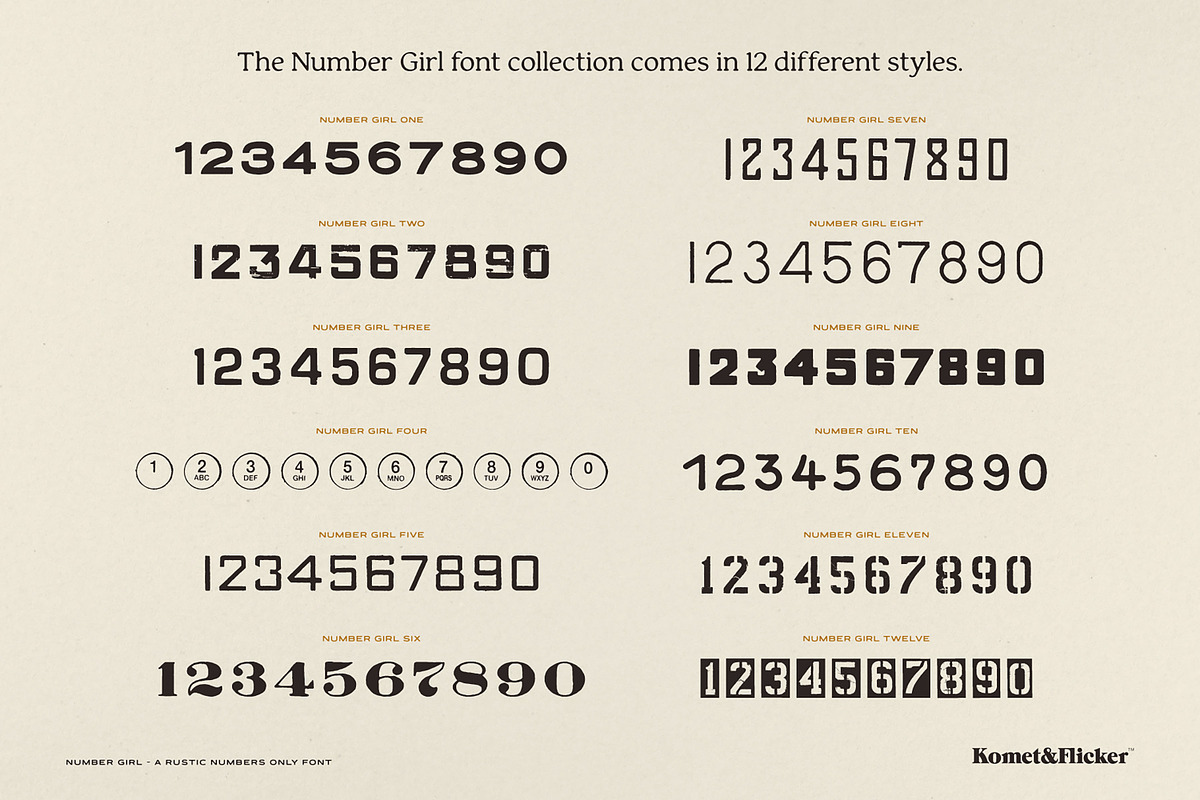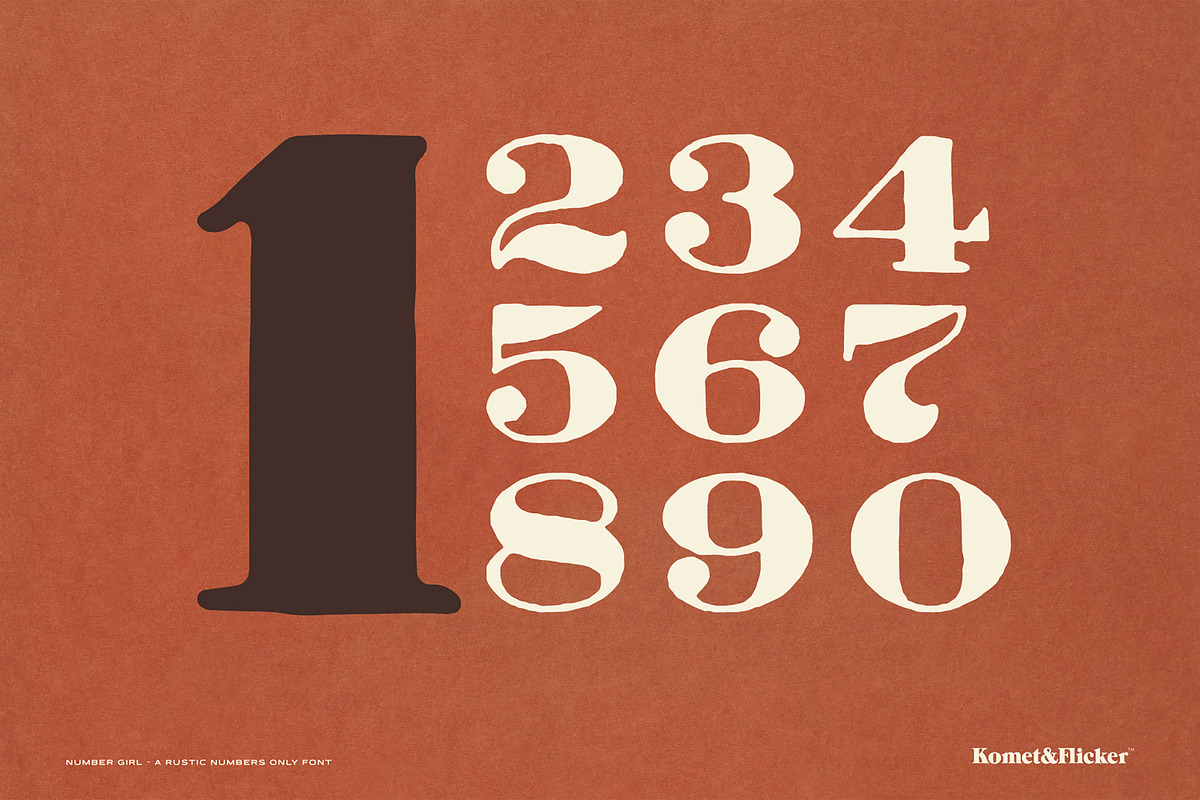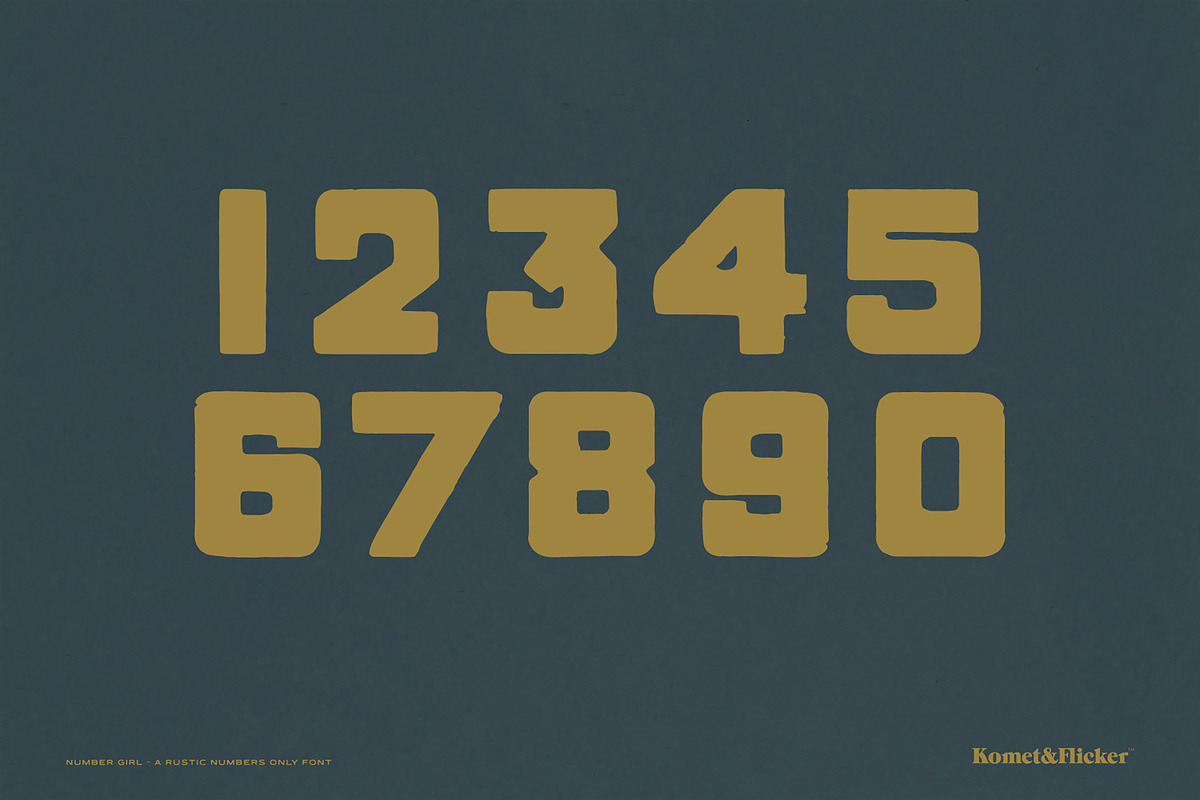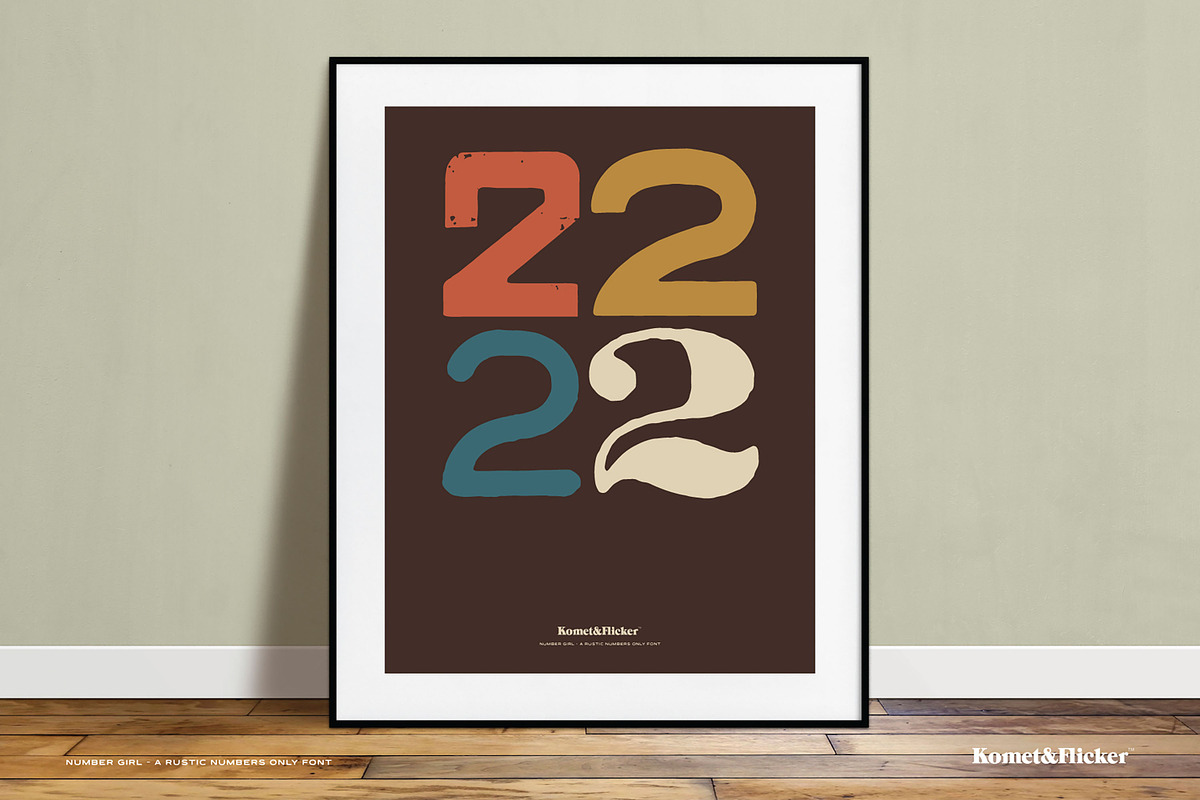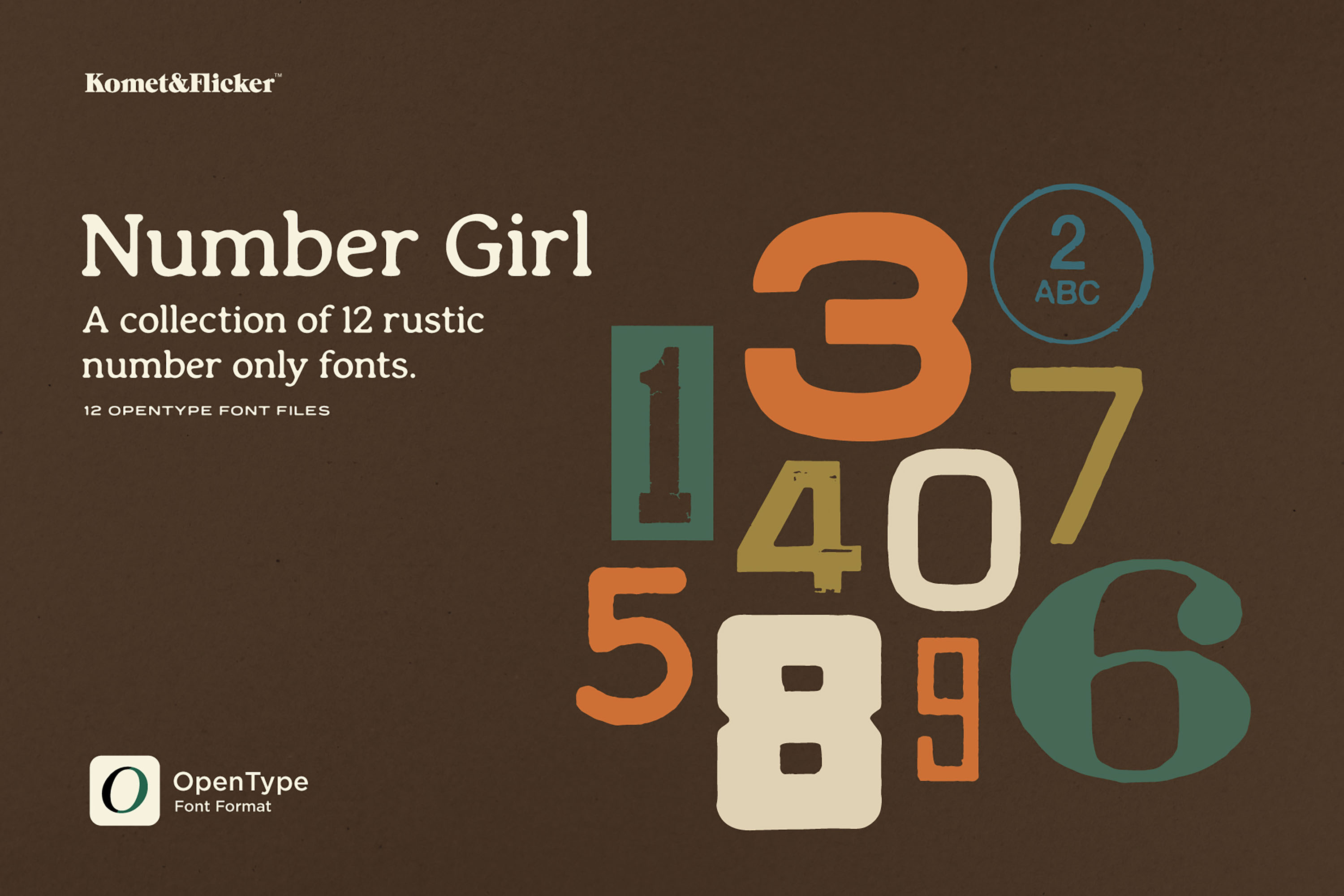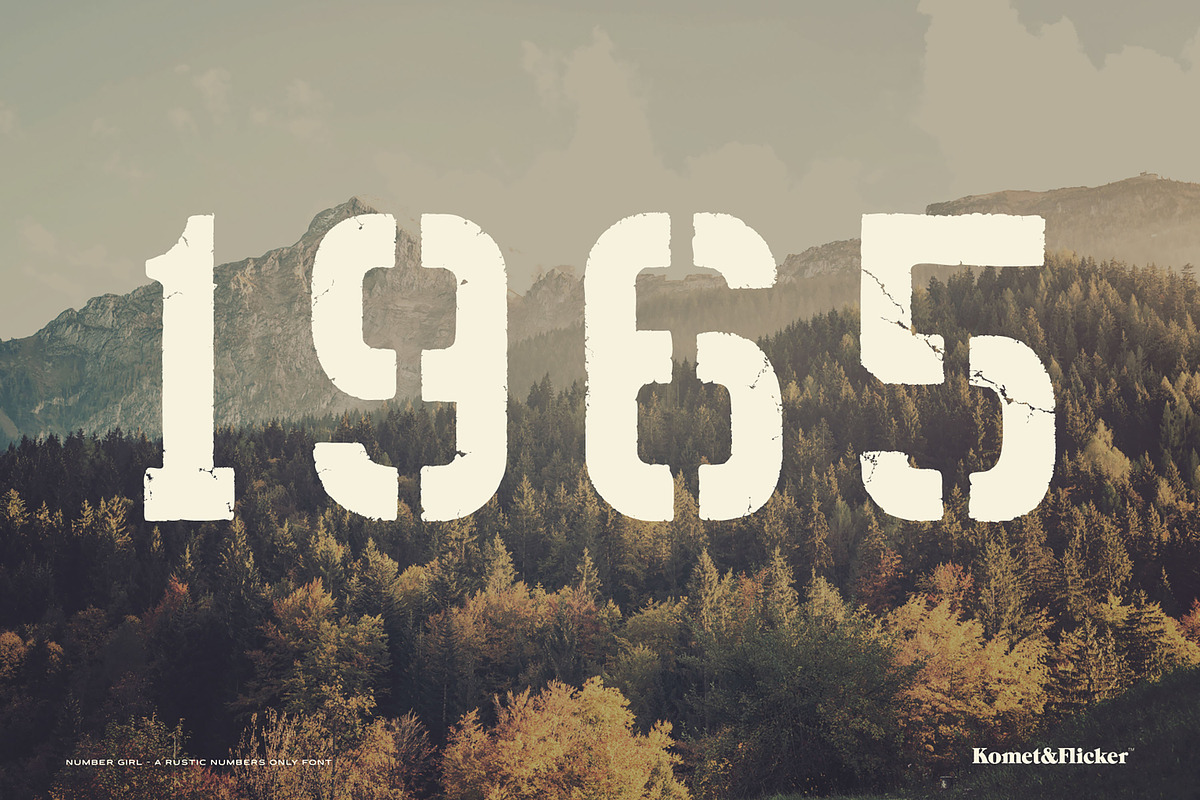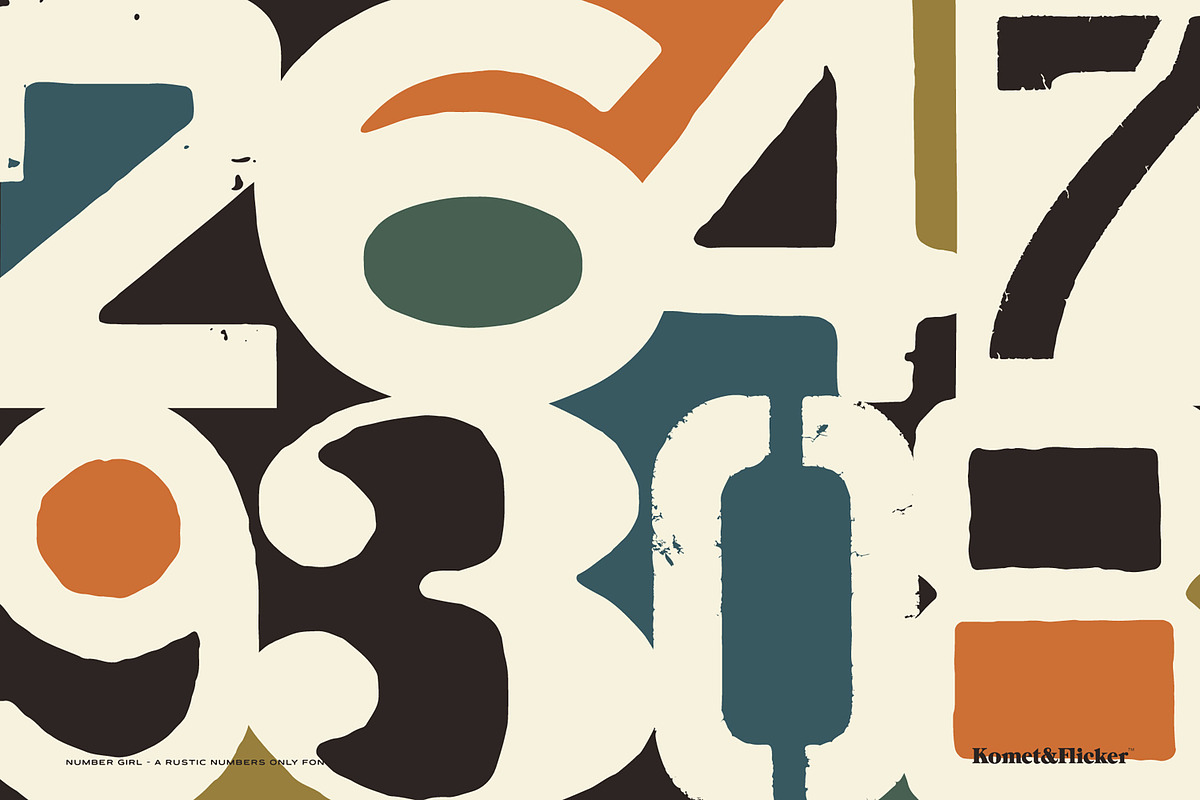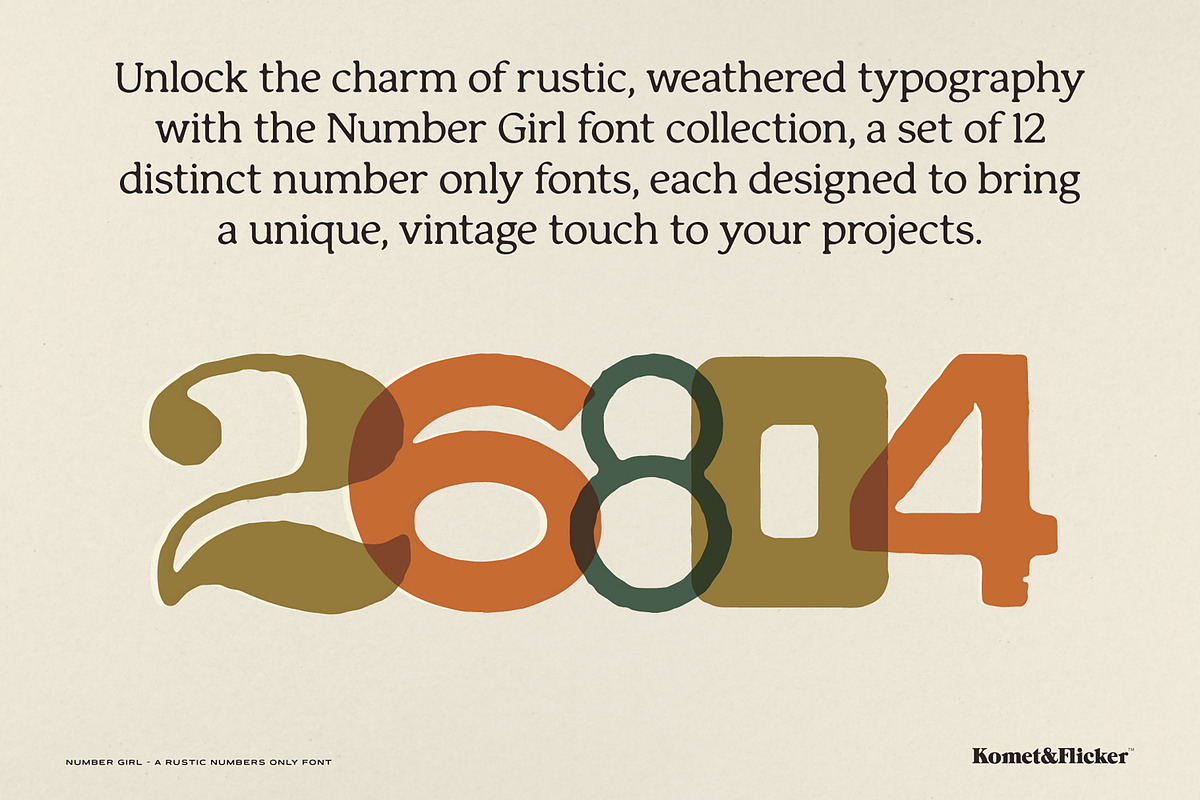
Number Girl – Number Only Fonts
Unlock the charm of rustic, weathered typography with the Number Girl font collection, a set of 12 distinct number only fonts, each designed to bring a unique, vintage touch to your projects. Use these number fonts for posters, branding, social media graphics, and more. This collection captures the beauty of numbers in their most authentic, time-tested form.
12 Individual Fonts: Each font in the collection is a 0-9 numbers only typeface, with distinct variations in texture and design.
Rustic & Well-Weathered Look: These numbers have a hand-crafted, aged appearance, perfect for evoking a sense of history and character in any design.
Versatile & Timeless: These fonts can be used across a variety of design styles and are ideal for projects with a rustic, industrial, or vintage aesthetic.
Please note: these fonts are numbers only and do not contain any letters or punctuation.